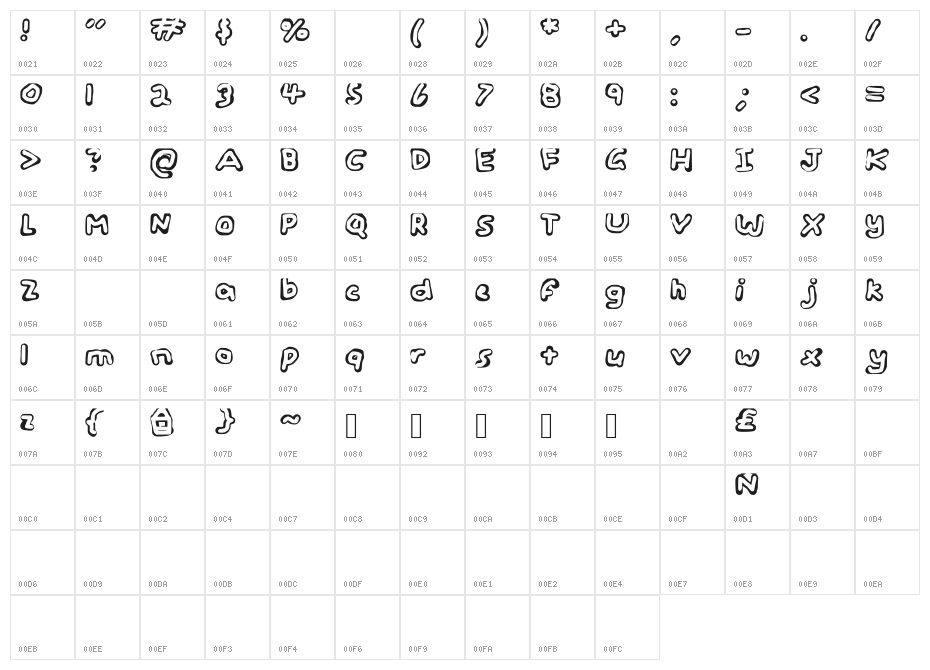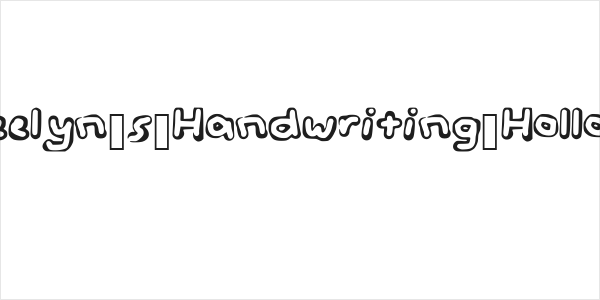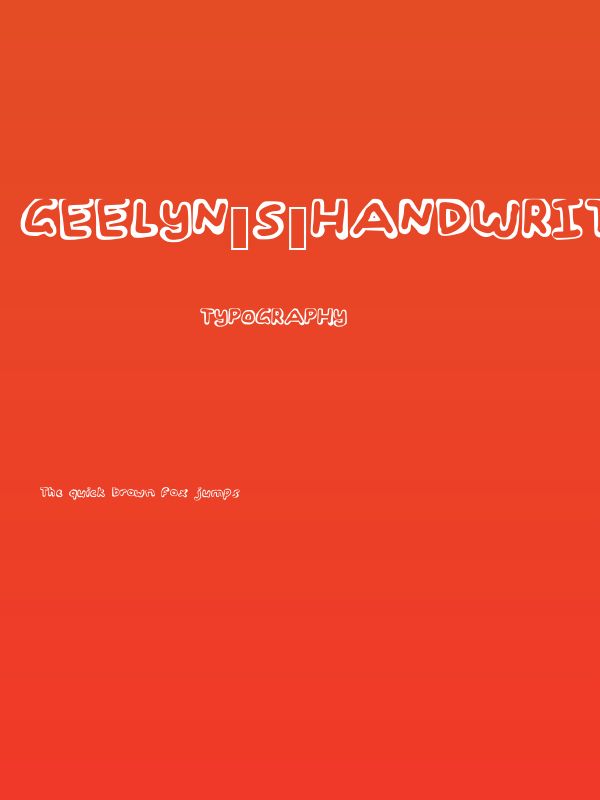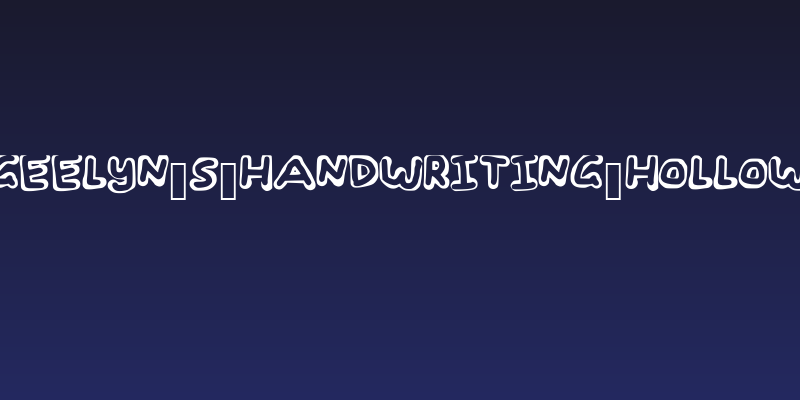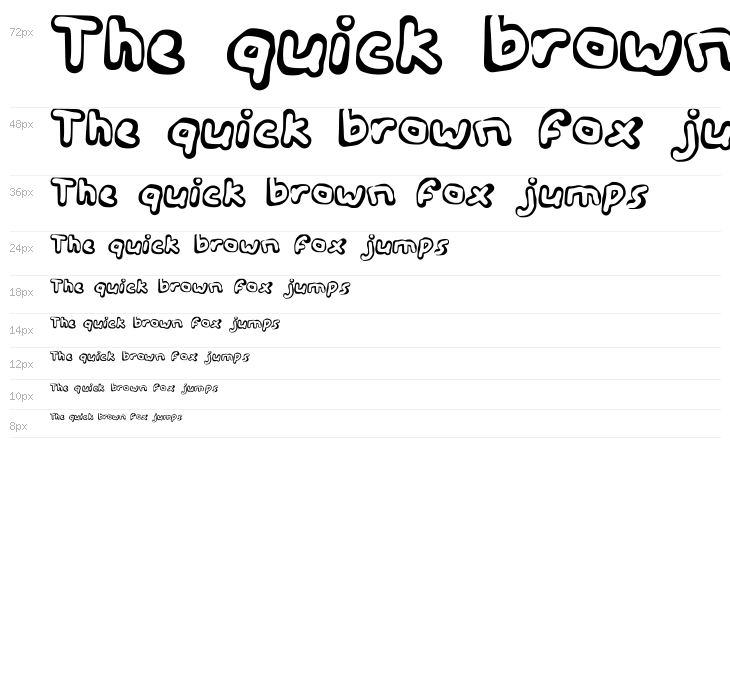
Geelyn_s_Handwriting_Hollow Font
Geelyn_s_Handwriting_Hollow Description
This playful and whimsical font features a hollow, hand-drawn style that mimics casual handwriting. Each character is outlined with a bold stroke, creating a fun and approachable look. The uppercase and lowercase letters maintain a consistent style, with rounded edges and a slightly irregular shape that adds to the handwritten feel. Numbers and special characters are included, matching the overall aesthetic. The font's unique appearance makes it ideal for creative projects that require a personal touch.
| Proposed Projects | Ideal for children's books, greeting cards, playful branding, and DIY projects. |